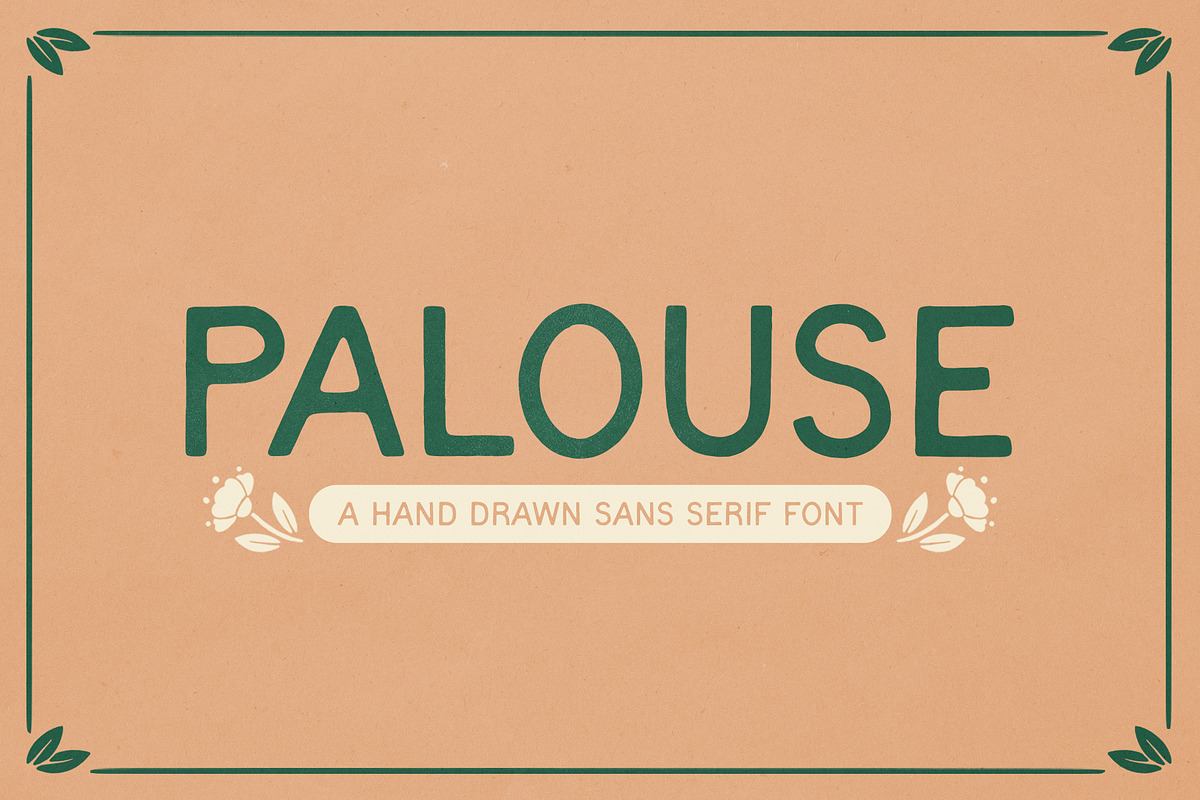
PALOUSE | Hand Drawn Sans Serif Font Free Download
PALOUSE | Hand Drawn Sans Serif Font Free Download is a unique and stylish typeface with a hand-drawn touch. Featuring clean, geometric letterforms with an organic feel, PALOUSE brings a personal, handcrafted charm to your designs. It’s perfect for branding, posters, logos, quotes, and any creative project that calls for a more casual and authentic vibe.
The font’s simple yet distinctive structure makes it highly versatile, allowing you to use it for both short and long text. Whether you're creating designs for a natural product line, a quirky brand, or a laid-back event, PALOUSE gives your typography a fun, relaxed look.